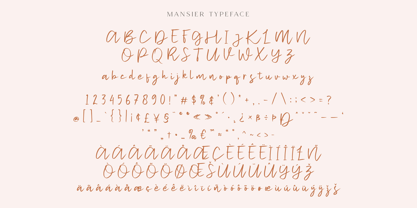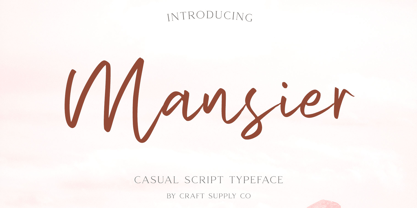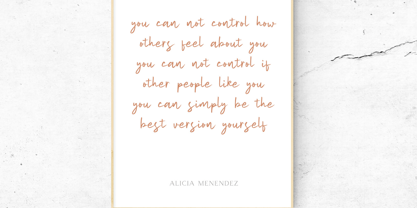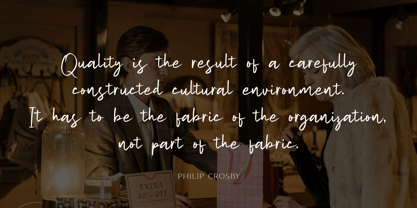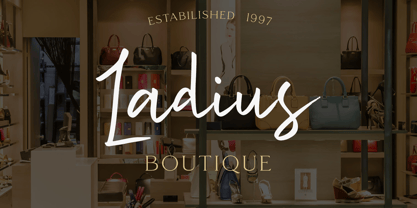
Mansier
by Craft Supply Co
The Mansier Font Family was designed by Trio Nazzar Saputra, Wahyu Hadi Yuana and published by Craft Supply Co. Mansier contains 2 styles and family package options. More about this family
🌸 Introducing New Font : Mansier – Casual Script Typeface 🌸 Mansier – Casual Script Typeface is a modern script font with feminine touch. Mansier – Casual Script Typeface will work perfectly for fashion, e-commerce brands, trend blogs, wedding boutiques or any business that wants to appear upscale and chic. Mansier – Casual Script Typeface also Suitable for Logo, greeting cards, quotes, posters, branding, name card, stationary, design title, blog header, art quote, typography, art, modern envelope lettering or book design, happening style like handdrawn design or watercolor design theme, craft design, any DIY project, book title, or any purpose to make your art/design project look pretty and trendy.
Designers: Trio Nazzar Saputra, Wahyu Hadi Yuana
Foundry: Craft Supply Co